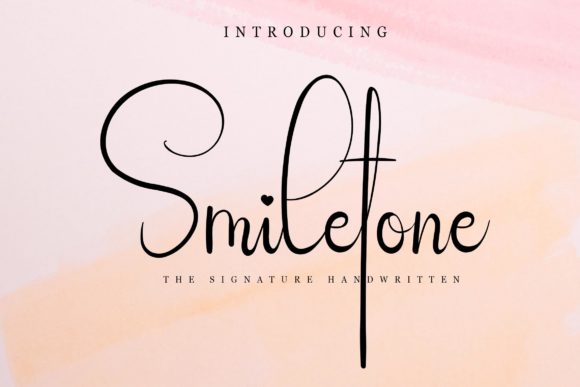
Unleash the elegance of handwritten signatures with Smiletone Font, a stunning script font meticulously crafted to elevate your designs beyond the ordinary. Bathed in sophistication and charm, this font exudes a graceful aura that captivates and inspires. With every letter adorned with unique, beautiful touches, Smiletone is the perfect choice for creating logos, branding, and quotes that leave a lasting impression.
Immerse yourself in the world of elegance with Smiletone Font. Each letter dances across the page with a graceful fluidity, capturing the essence of handwritten artistry. Its formal and informal designs blend effortlessly, making it suitable for a wide range of applications. Whether you're creating a logo for your business, designing marketing materials, or personalizing a quote, Smiletone delivers an air of sophistication that elevates your work.
Enter the realm of limitless creativity with Smiletone. This font's PUA encoding unlocks a treasure trove of glyphs and ligatures, empowering you to explore endless design possibilities. Effortlessly access these special characters and unleash your imagination, crafting designs that radiate originality and flair. Smiletone is not just a font; it's an artistic playground where your creativity can soar.
Indulge in the beauty of Smiletone Font and transform your designs into masterpieces. Its graceful strokes and elegant curves will leave your audience spellbound, creating a lasting impression that resonates with sophistication and charm. Experience the magic of Smiletone, and elevate your designs to new heights of visual excellence.